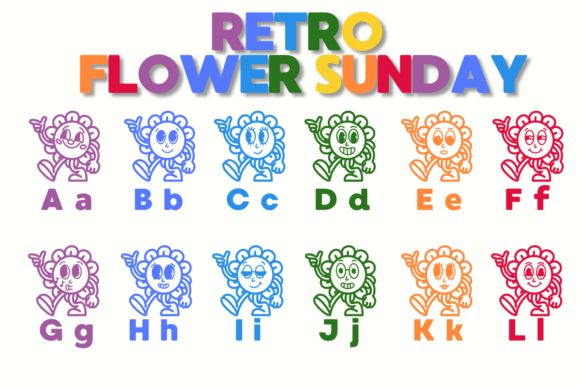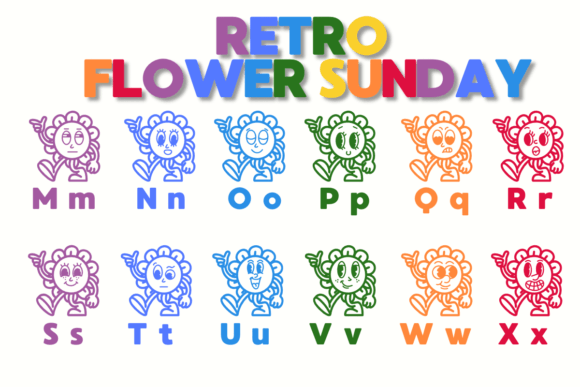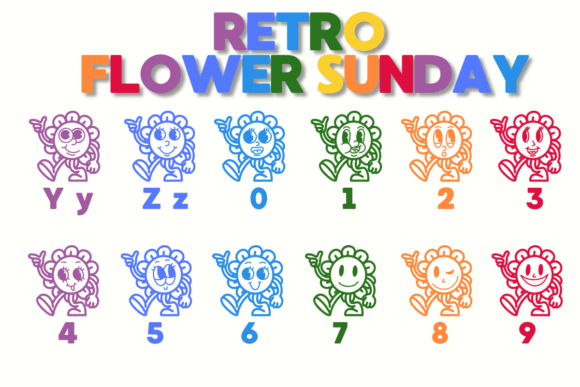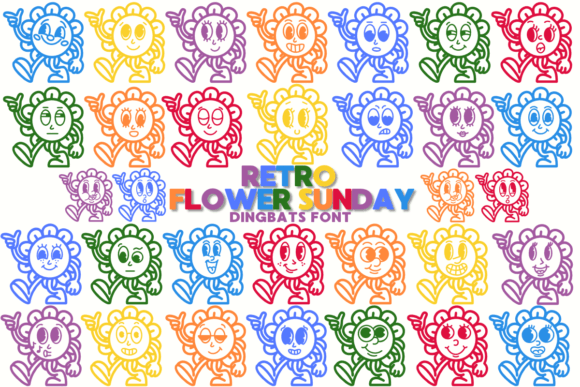
Retro Flower Sunday is a dingbats font with a floral theme.
This font can enhance your creative projects such as wedding invitations, DIY, crafts, decorations, logos, and many other creative ideas .